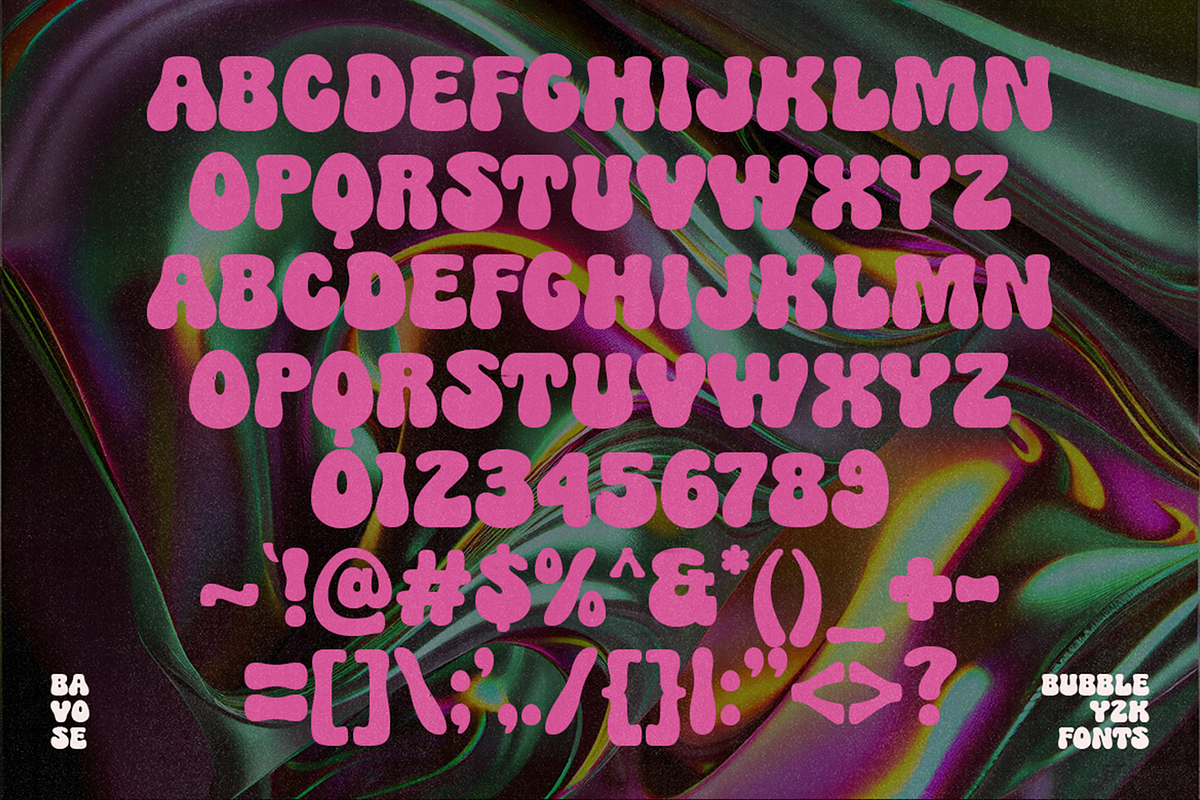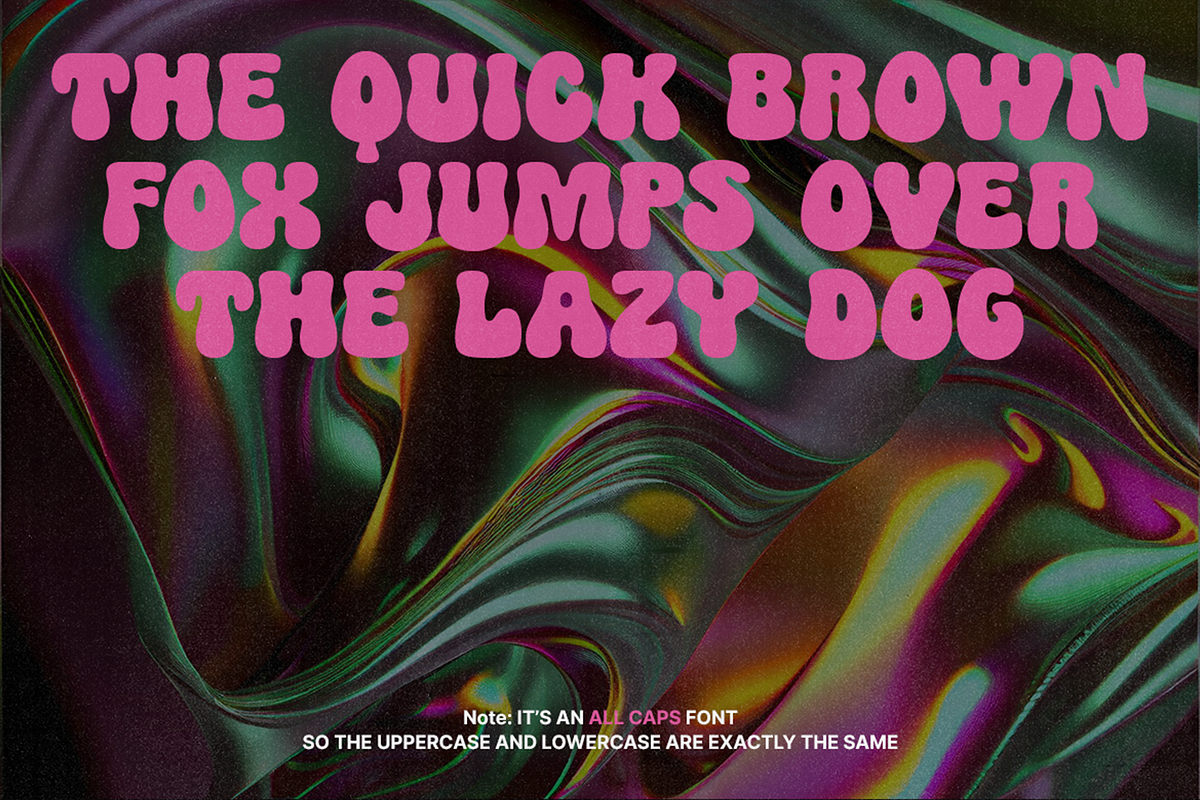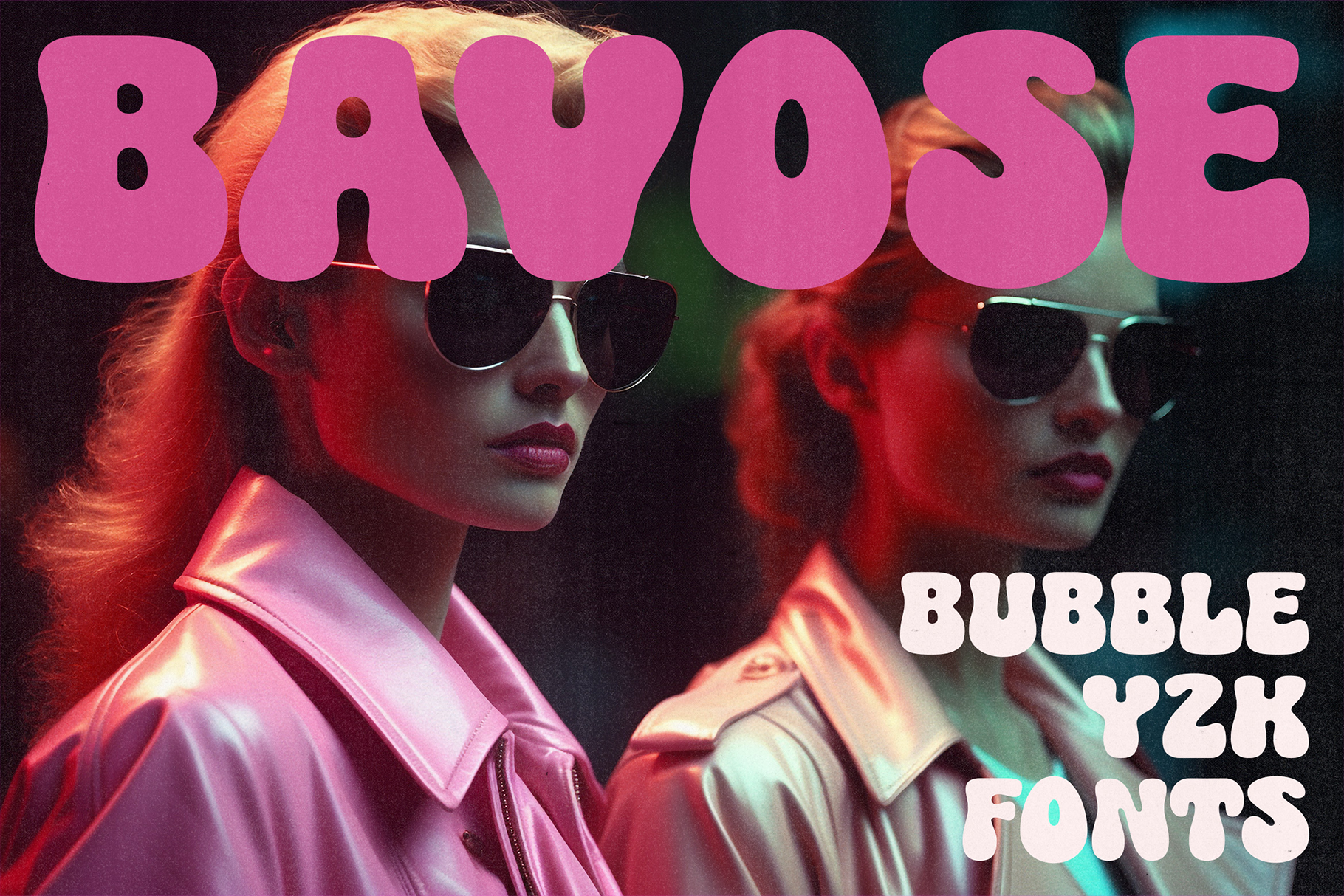
Bavose - Bubble Y2K Fonts
Are you craving some far-out font vibes? Look no further, dudes and dudettes! Introducing Bavose - your ticket to the ultimate Retro Bubble Y2K Fonts extravaganza!
Wanna level up your designs? Don't be a n00b! Bavose offers a blast from the past, bringing those old-school vibes to your fingertips. Say goodbye to basic fonts and get ready to flex your creativity with fonts that'll make your graphics totally tubular!
Bavose - Because nostalgia never looked so cool!